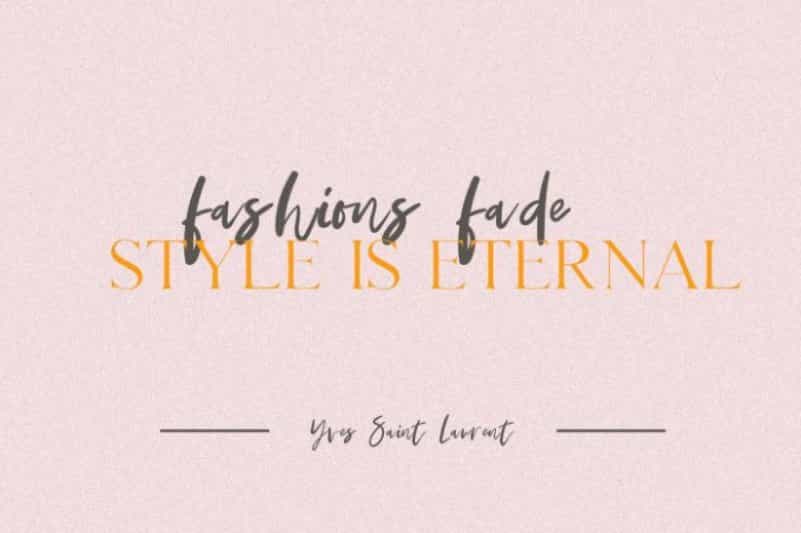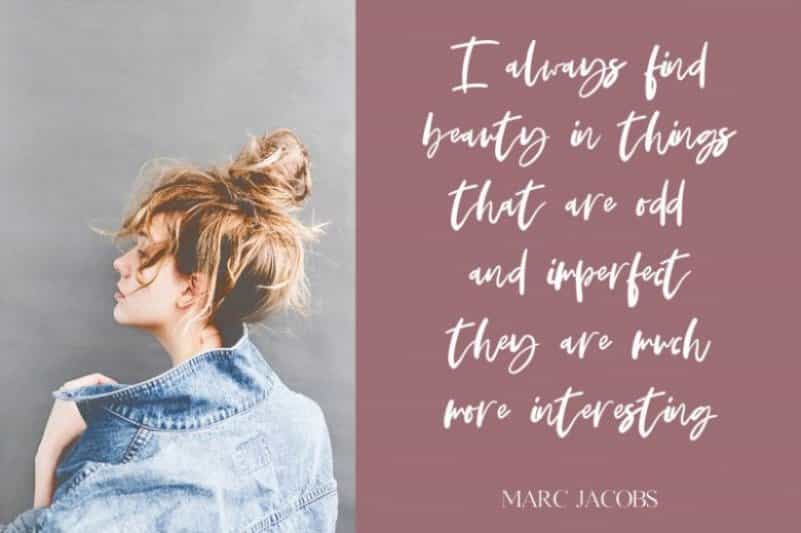
Discover Nature of Beauty Font Duo, part of the Handwritten Serif collection—a versatile and unique font perfect for adding a personal touch to your projects. Download it for free and enjoy crafting designs with style, from invitations to social media posts. This font is available exclusively for personal use, giving you the freedom to create without limits. Unlock your creativity with Nature of Beauty Font Duo today!
The new Nature of Beauty Font Duo is now here. It is designed and shared by lyanatha. It is a nice font duo with the modern twist. The combination of these two fonts will effortlessly make the design look special and different.